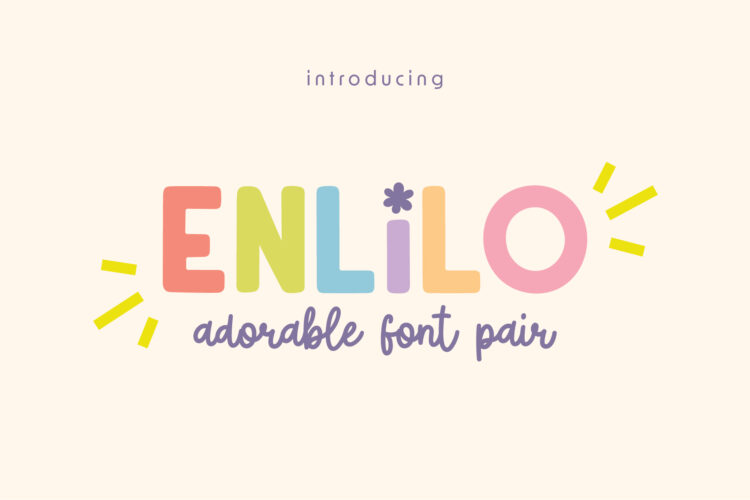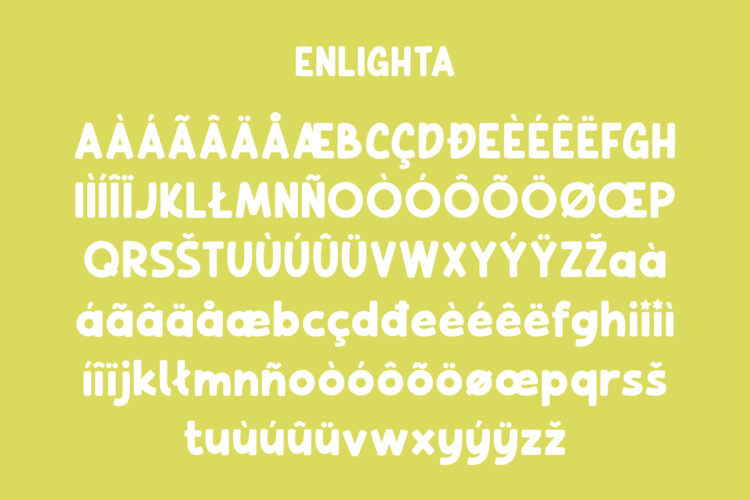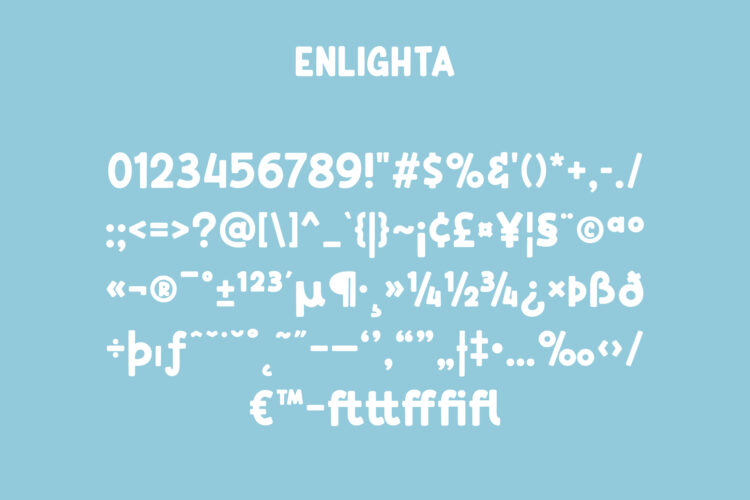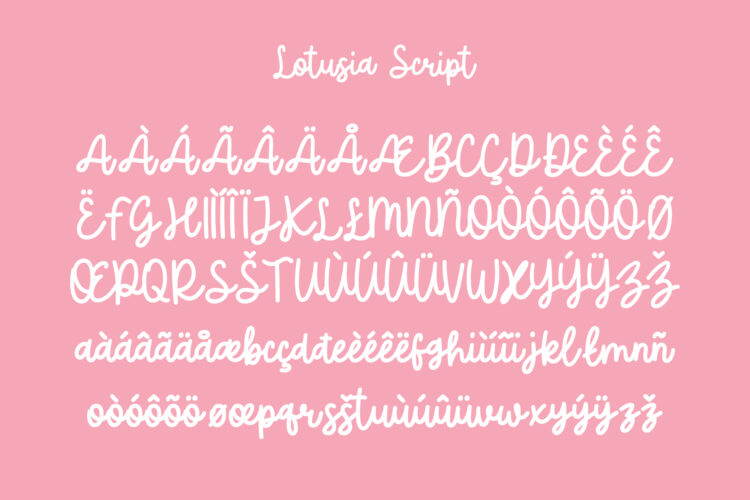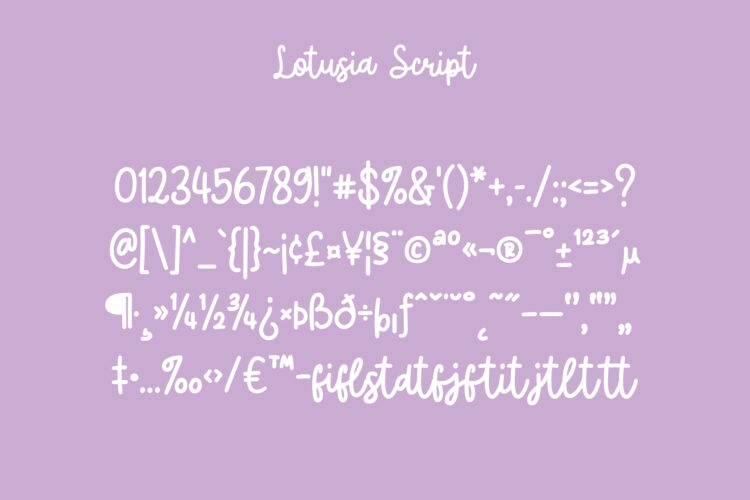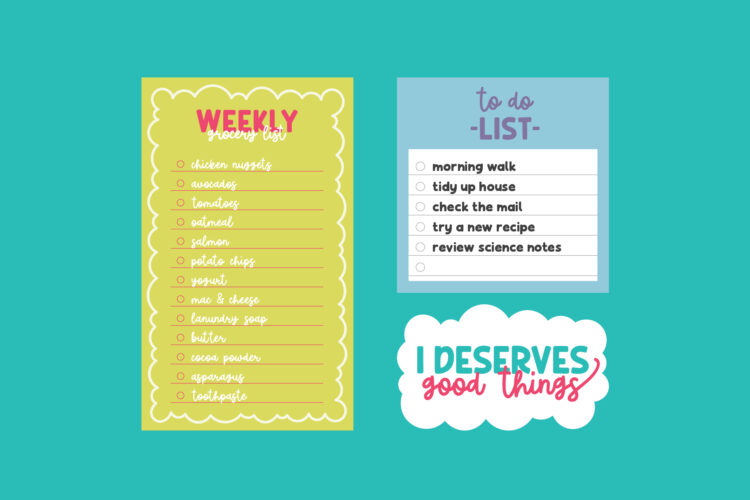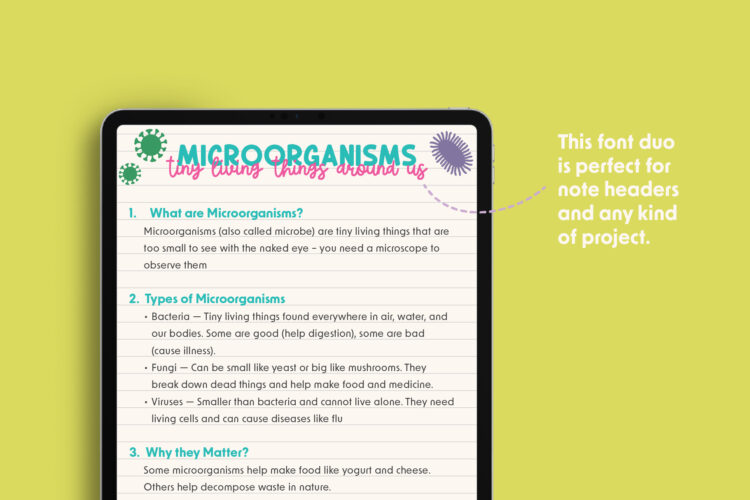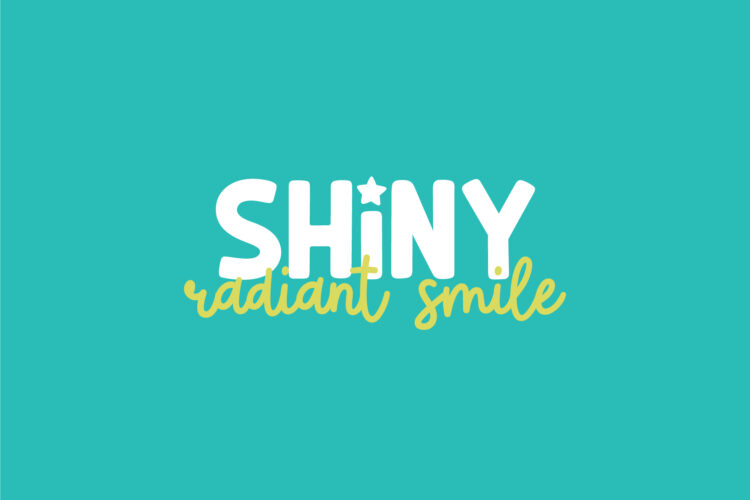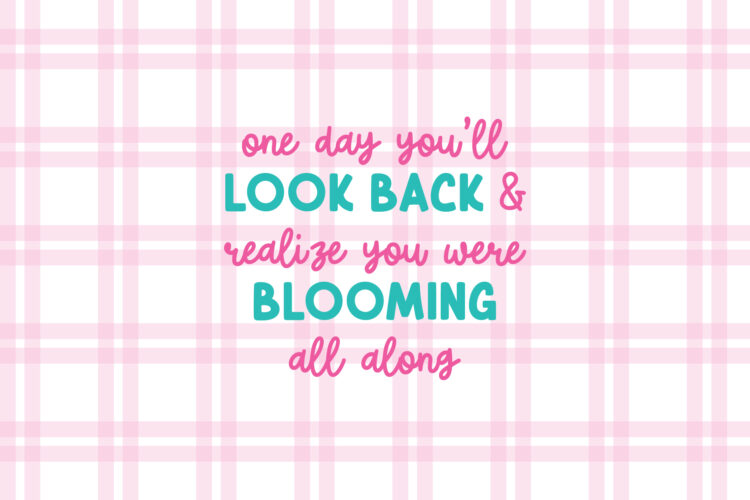
Introducing Enlilo – A Cute & Adorable Font Duo!
Say hello to Enlilo, a dynamic font duo that brings personality and charm to your creative projects. This set includes two beautifully crafted fonts that complement each other perfectly:
✨ Enlighta – A doodle-style font with rounded edges that gives off a friendly, hand-drawn feel. It’s lighthearted, expressive, and ideal for adding a personal touch.
✨ Lotusia Script – A bold, handcrafted script font with a fun and playful vibe. With its thick strokes and flowing curves, it adds warmth and energy to any design.
Together, Enlighta and Lotusia Script form a powerful combination, perfect for creative works such as posters, logos, book covers, product packaging, and more. Whether you’re designing something whimsical or eye-catching, Enlilo offers the flexibility and style to make your ideas shine.